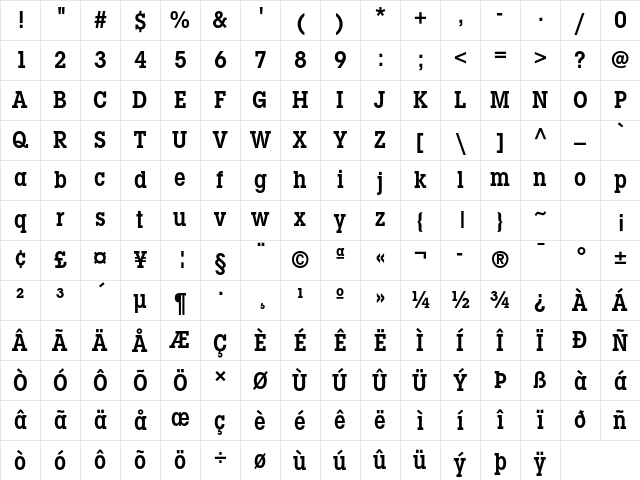
ITC Lubalin Graph Std Demi Bold Condensed
Style: Demi Bold Condensed
Designer: Herb Lubalin
Design Context for ITC Lubalin Graph Std
ITC Lubalin Graph Std is a composed and adaptable typeface that performs quietly and consistently across a wide range of design contexts. Its bold stroke weight gives it real presence on the page. Its narrow stance lets it pack a punch even in space-constrained designs.
Pro Tip: Use ITC Lubalin Graph Std in both headline and body roles to test its range before committing to a single application.